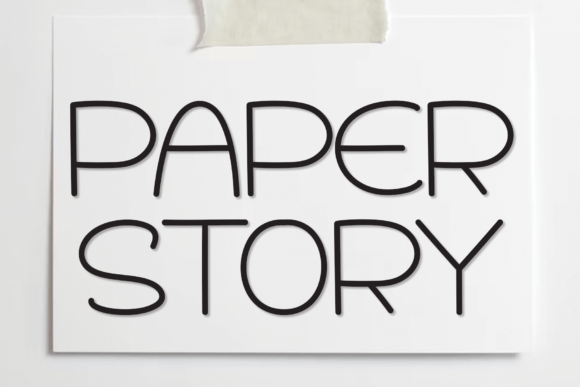
Introducing Paper Story Font - the perfect font style for calligraphy enthusiasts! This stunning sans serif font is designed by the talented Roronoa Zoro S.P.D. With its fresh and natural handwritten style, Paper Story is perfect for adding a touch of elegance and sophistication to any design.
The unique charm of Paper Story lies in its incredibly distinct and timeless style. Its smooth and flowing lines create a sense of natural beauty and simplicity that is simply irresistible. Whether you are designing invitations, logos, or branding materials, Paper Story will add a touch of sophistication that will make your work stand out.
But that's not all - Paper Story is also incredibly versatile. With its clean and modern look, it is perfect for a wide range of design projects, from wedding invitations to product packaging. Plus, it comes in a variety of weights, making it easy to customize and perfect for any project.
But what really sets Paper Story apart is the emotion it evokes. This font is more than just a collection of letters - it is a work of art that will inspire you to create something truly special. Its timeless style will transport you to a place of natural beauty and tranquility, making it the perfect choice for those seeking to elevate their design work.
So if you want to create something truly breathtaking, choose Paper Story Font. Fall in love with its natural beauty, timeless style, and emotional impact, and let it inspire you to create something truly unforgettable.